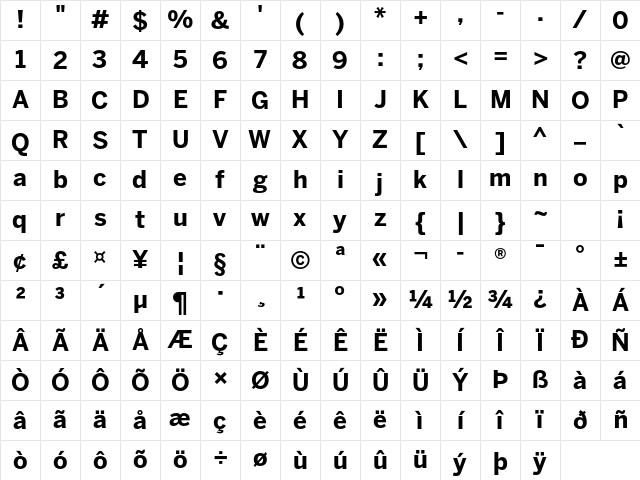
Complete MP FBBentonSans Bold glyph index. Displaying only characters natively supported by MP FBBentonSans Bold font.
MP FBBentonSans is a composed and adaptable typeface that performs quietly and consistently across a wide range of design contexts. Its bold stroke weight gives it real presence on the page.